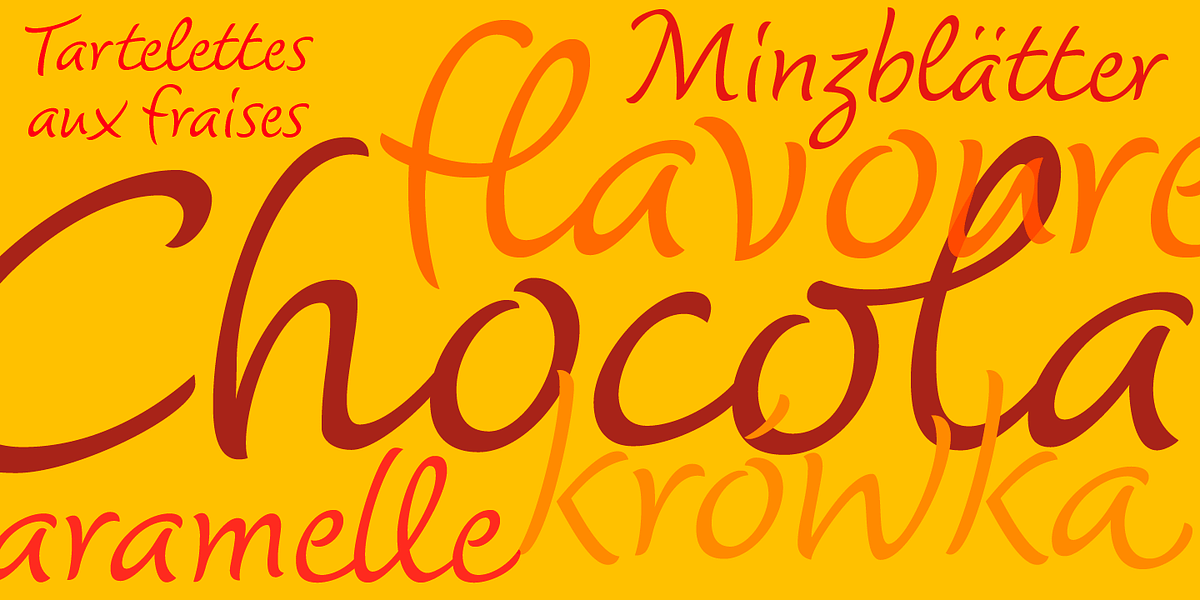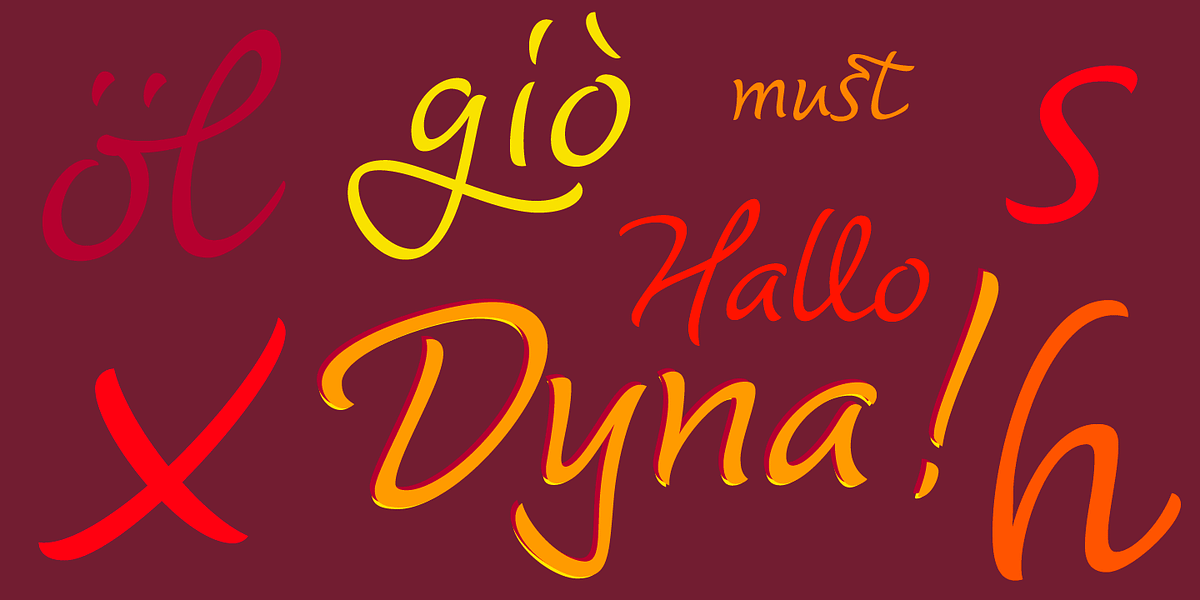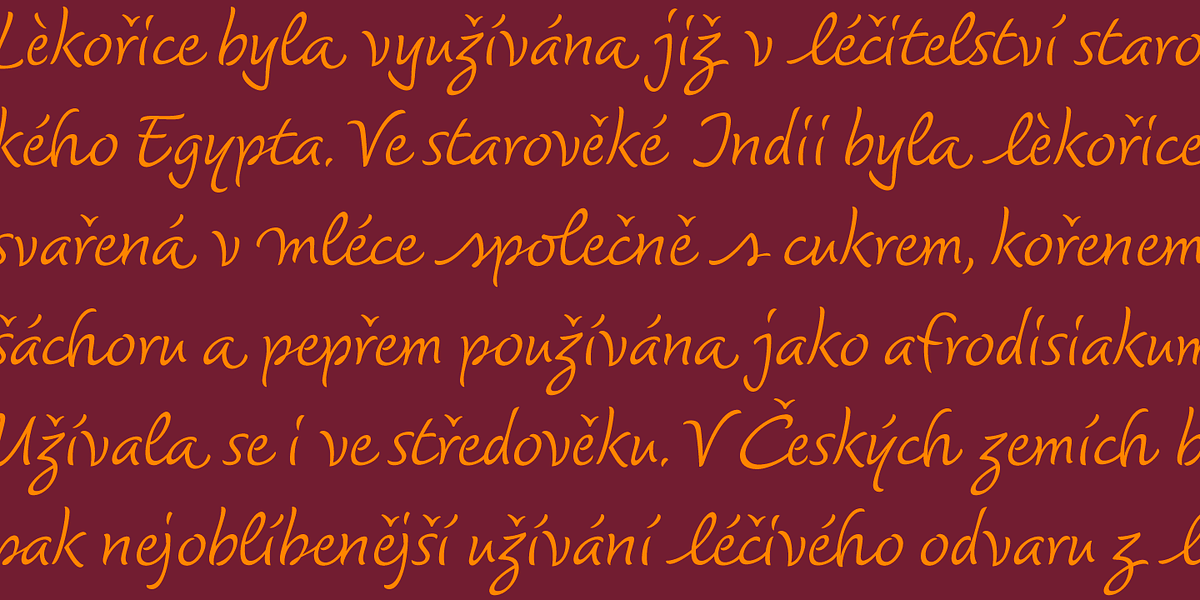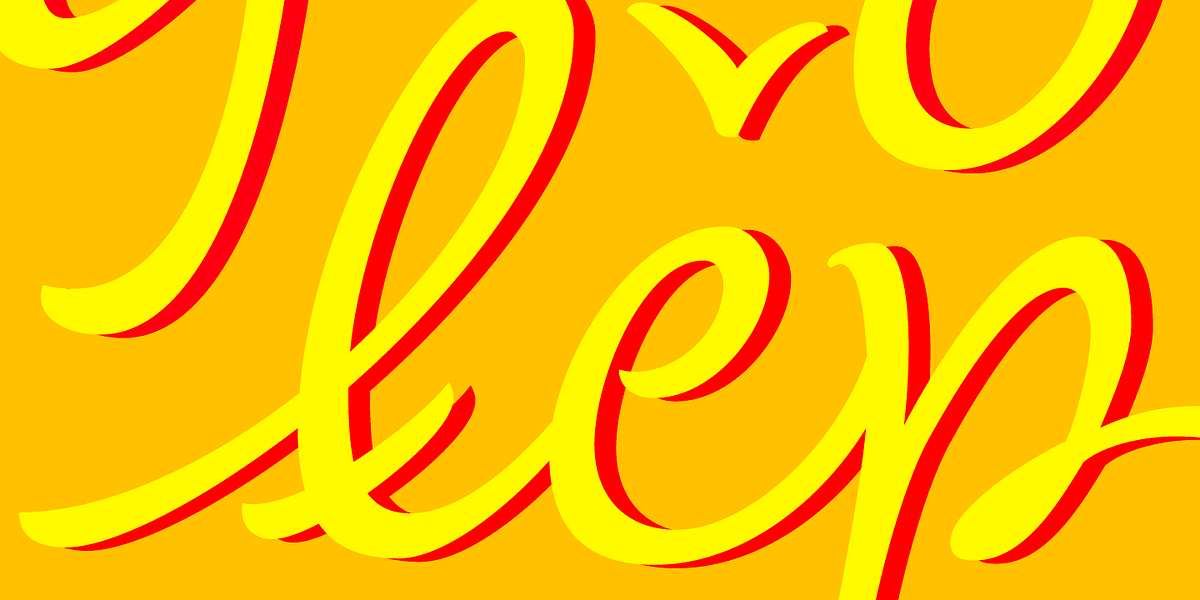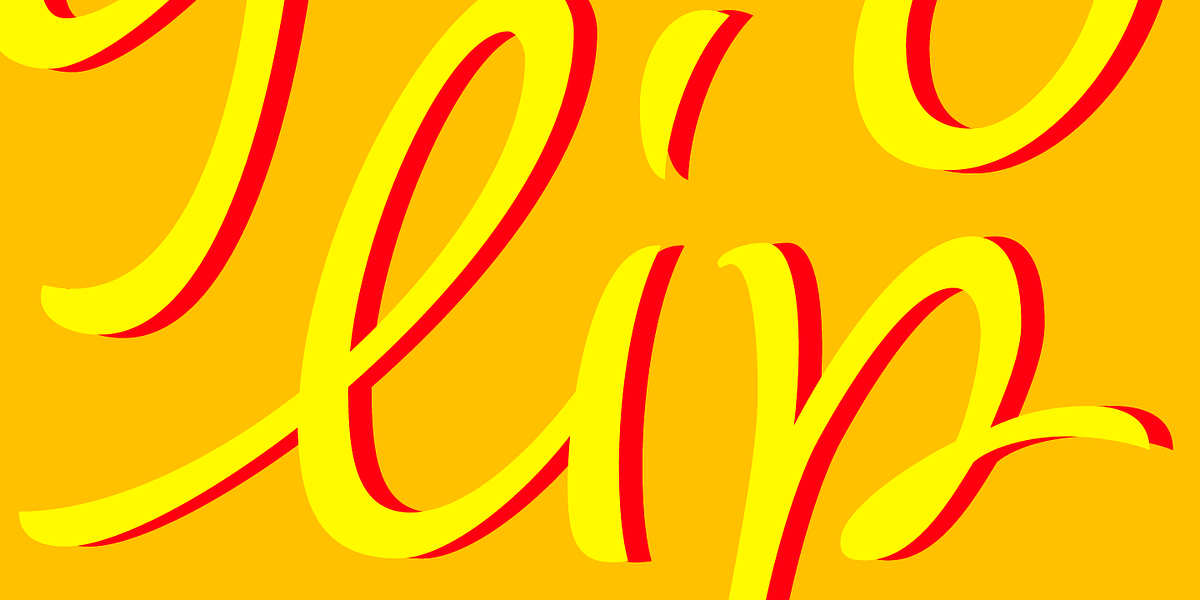
Dyna Pro
Elena Albertoni's Dyna font is a casual hand script inspired by the lettering frequently seen on products in French supermarkets. The font features a playful and friendly personality thanks to its sloped letterforms and open shapes, which suggest movement and gesture.